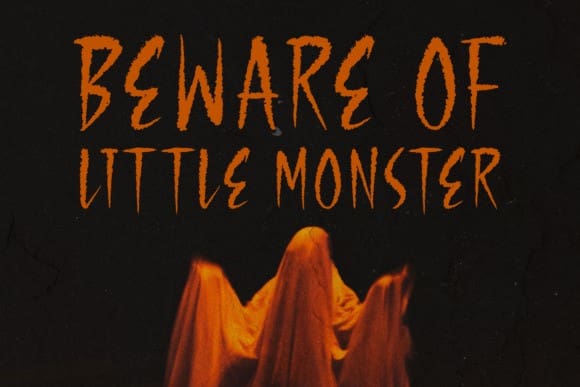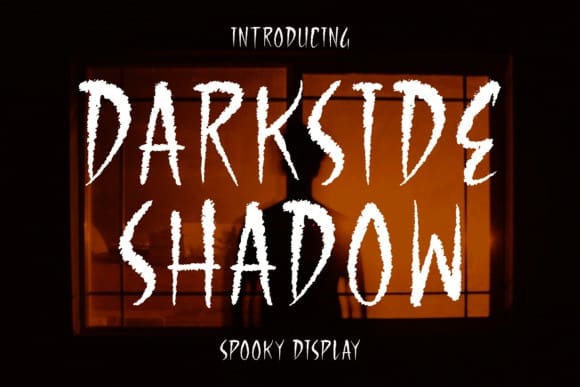
Darkside Shadow Font
Darkside Shadow Font – Spooky handwritten font, suitable for any projects such as logos, branding projects, homeware designs, product packaging, mugs, quotes, posters, shopping bags, t-shirts, book covers, name cards, invitation cards, greeting cards, labels, photography, watermark, special events, and all your other lovely projects that need beautiful typography.